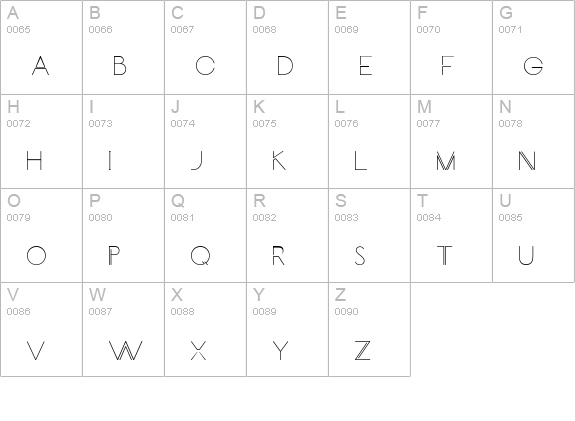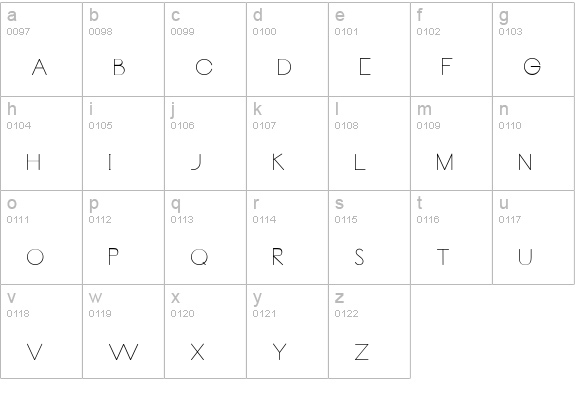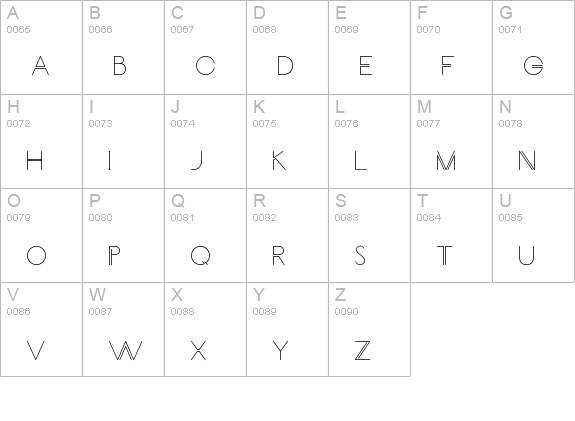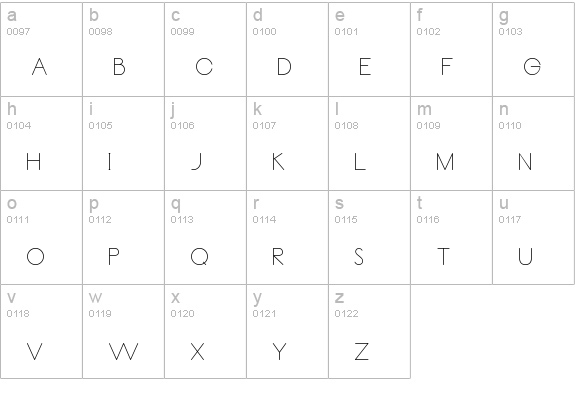
Carrinady - Modern Sans Font Details
Introducing Carrinady - a sleek and stylish Modern Sans font designed to elevate your design projects to new heights. With its clean lines and contemporary feel, Carrinady is perfect for a wide range of applications, from branding and advertising to web design and more. This versatile font exudes a sense of sophistication and professionalism, making it ideal for both digital and print projects.